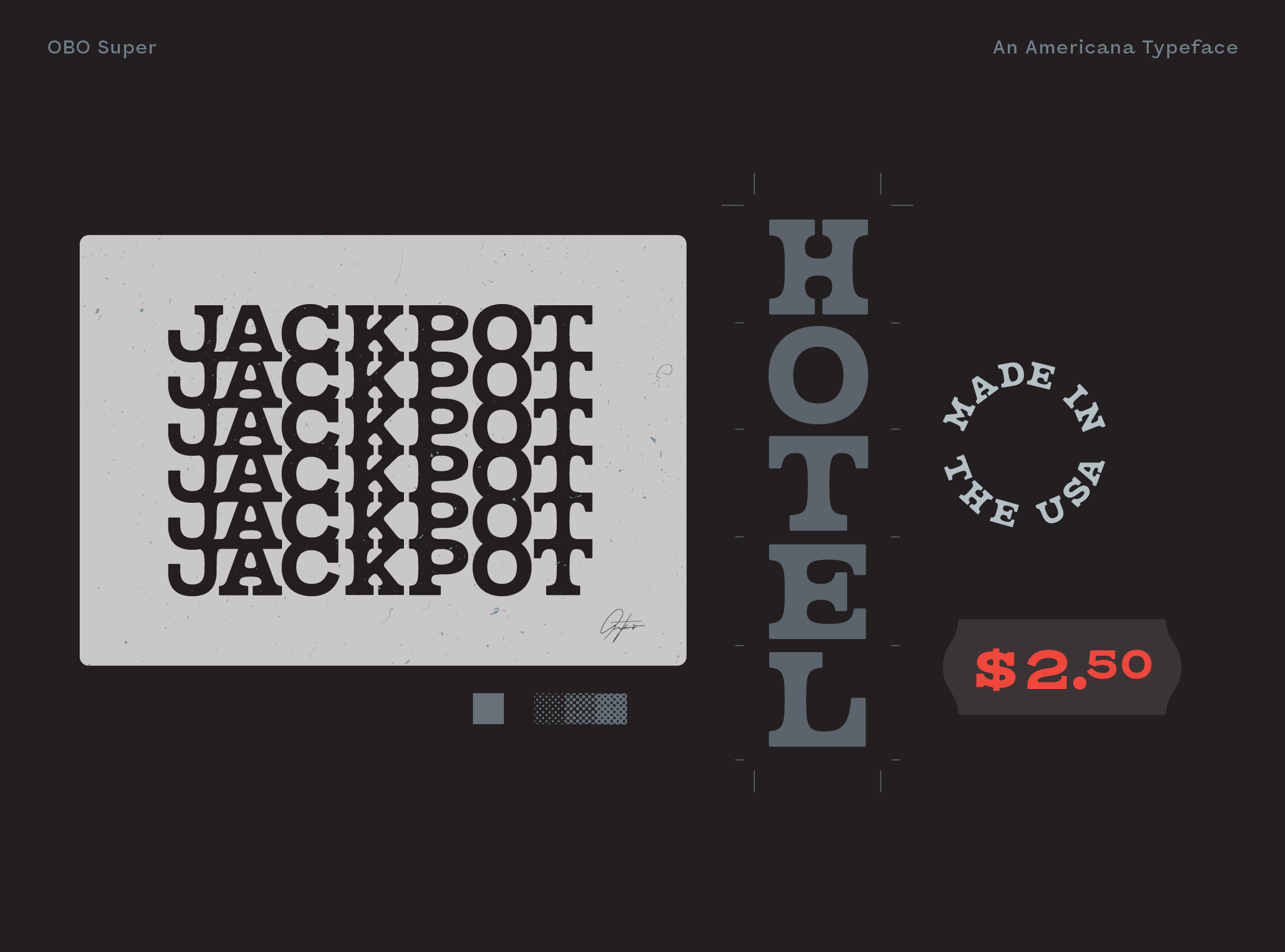
OBO Super Typeface
OBO Super is a 70s Americana type design, reminiscent of times when photos were shot on film and mixtapes were recorded on cassettes. With its rounded corners and soft interiors, this typeface exudes a distinct analog charm.